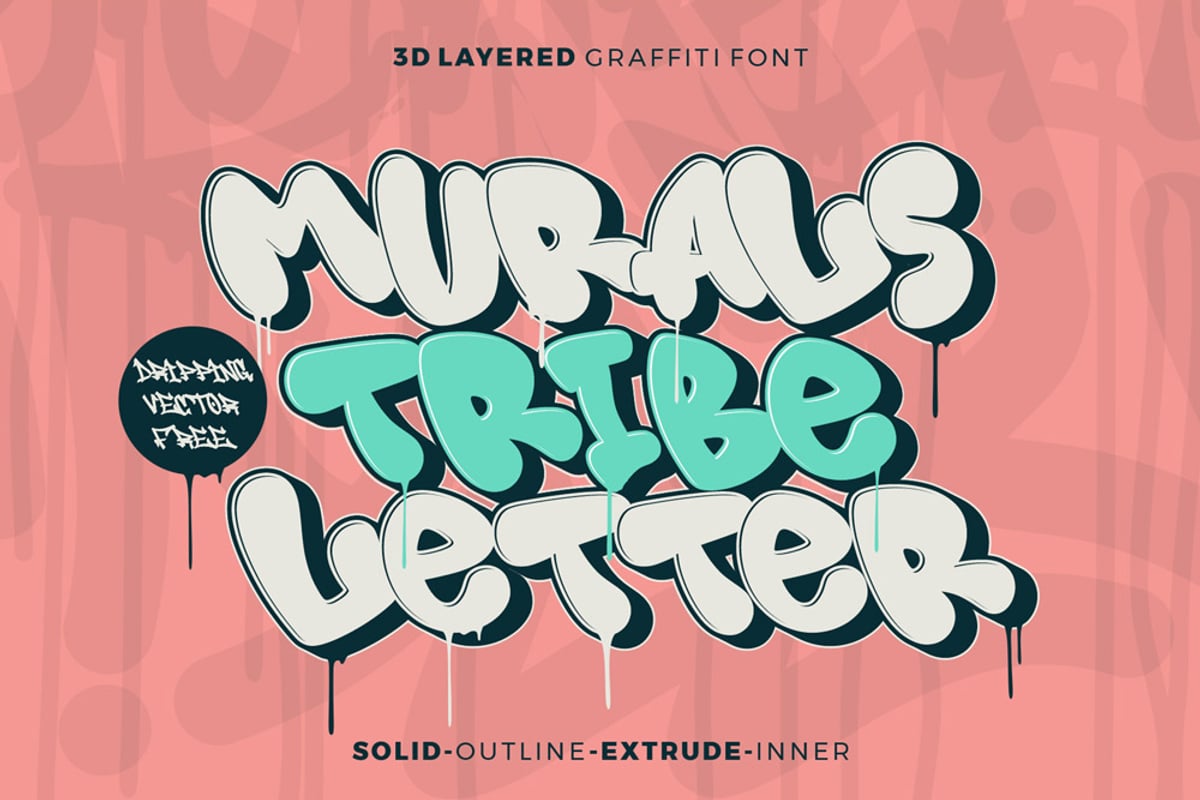
Murals Tribe Letter Extra
Murals Tribe Letter is a 3D layered display font characterized by rounded edges on each character, adding a cute or retro feel. The Murals Tribe Letter font family includes five styles: Solid, Outline, Extrude Outline, and Inner Shadow. These styles can be combined to create dynamic and engaging designs with a unique, playful touch. Perfect for posters, headlines, and any project seeking a charming and vintage aesthetic, Murals Tribe Letter offers versatility and creativity in every lay